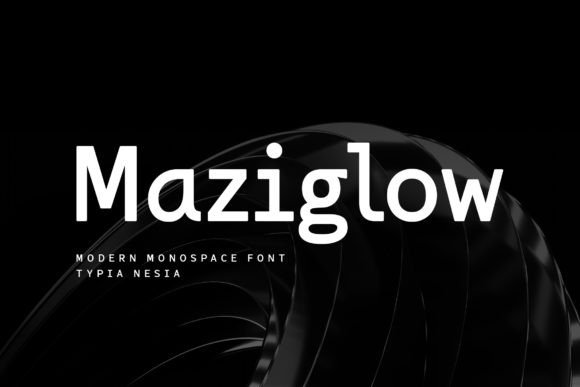
**Attention-Grabbing Intro:**
Unleash the power of words with Maziglow Font, where style meets substance. Crafted with precision and flair, this font family will transform your marketing materials, business plans, and creative projects into captivating works of art.
**A Masterpiece for Business Plans:**
As the name suggests, Maziglow is the ultimate font for creating compelling business plans that capture attention and drive results. Its crisp, clean lines and impeccable readability ensure that your ideas shine through with unparalleled clarity. With Maziglow, your business plans will not only impress but also inspire action.
**Embrace Elegance for Editorial Designs:**
Let Maziglow elevate your editorial designs to new heights of sophistication. Its timeless appeal and versatile nature make it the perfect choice for magazines, articles, and any written content that demands a touch of class. Whether you're crafting thought-provoking pieces or simply enhancing your brand's voice, Maziglow will infuse your words with a touch of elegance.
**Fashion-Forward for Promotional Campaigns:**
Step into the world of high fashion with Maziglow's bold and eye-catching style. It's the ideal font for creating promotional materials that stand out from the crowd and make a lasting impression. Showcase your latest collections, exclusive offers, and stylish events with a font that exudes both sophistication and a touch of whimsy.
**Versatility at Your Fingertips:**
The beauty of Maziglow lies in its versatility. It effortlessly adapts to a wide range of design projects, from stunning ticket designs to captivating stationery and blog layouts. Its clean lines and modern aesthetic bring a touch of chic to any occasion, whether it's a special event or a personal touch to your digital space.
**Conclusion:**
Maziglow Font is more than just a font; it's an investment in your brand's success and your creative expression. Its versatility, elegance, and captivating nature will leave a lasting impression on your audience. Unlock the full potential of your designs today with Maziglow, the font that empowers you to make your mark in the world of words and visuals.